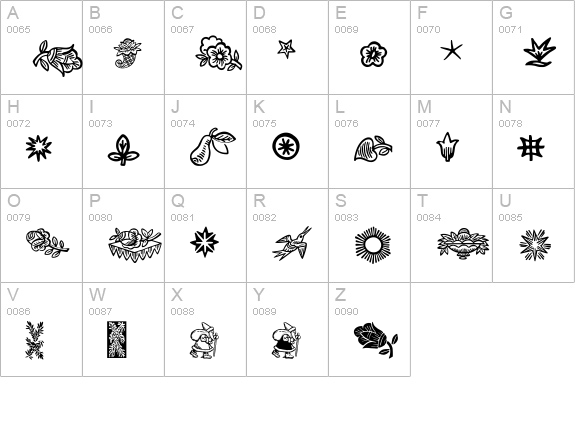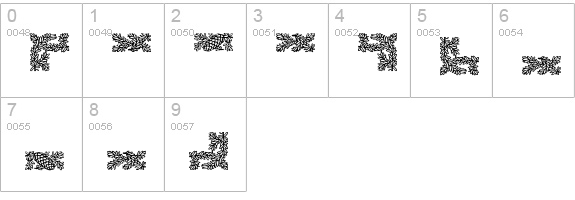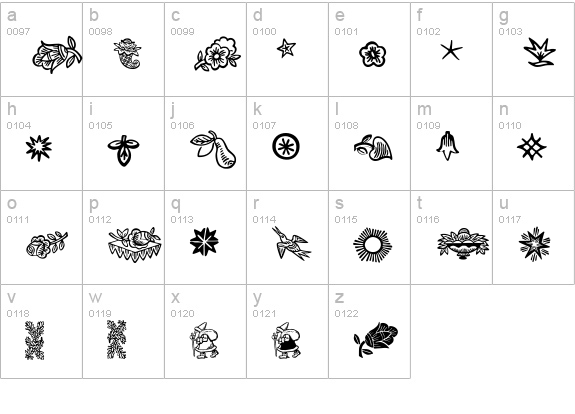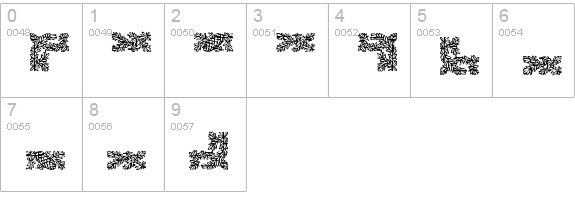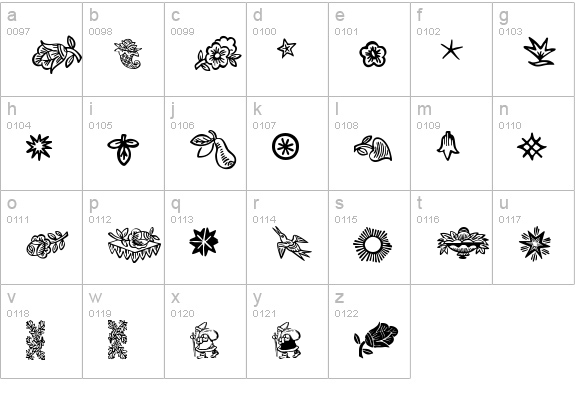
DeutscherSchmuck Font Details
DeutscherSchmuck font is a stunning and elegant typeface that exudes sophistication and charm. With its exquisite details and intricate design, this font captures the essence of traditional German craftsmanship and artistry. The elaborate swirls and ornate flourishes give DeutscherSchmuck a truly unique and timeless appeal. And the best part? DeutscherSchmuck font is available for free download at FontsMarket.com. You can add a touch of old-world charm to your designs without any cost. Don't miss out on this opportunity to elevate your projects with the beauty and elegance of DeutscherSchmuck font. Download it today and let your creativity shine!